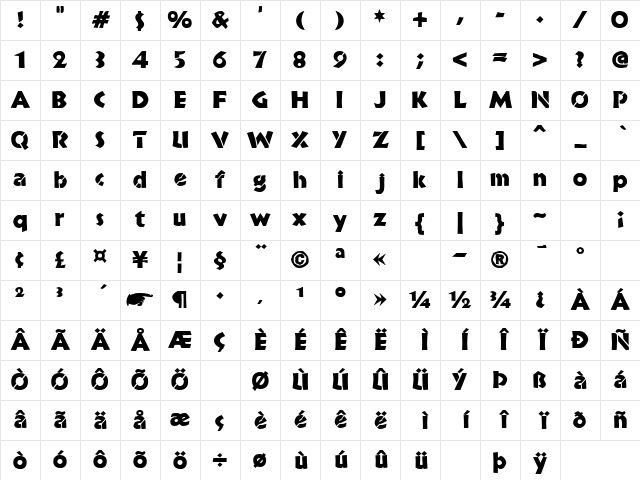
BrideOfTheMonster Trial
Copyright: BrideOfTheMonster font v1.1 ©1990 Harold Lohner. The caps and numbers are based on Rudolph Koch's Neuland. SHAREWARE. $5 gets you both complete versions.  http://members.aol.com|30|30|
Design Context for BrideOfTheMonster
BrideOfTheMonster is a composed and adaptable typeface that performs quietly and consistently across a wide range of design contexts.